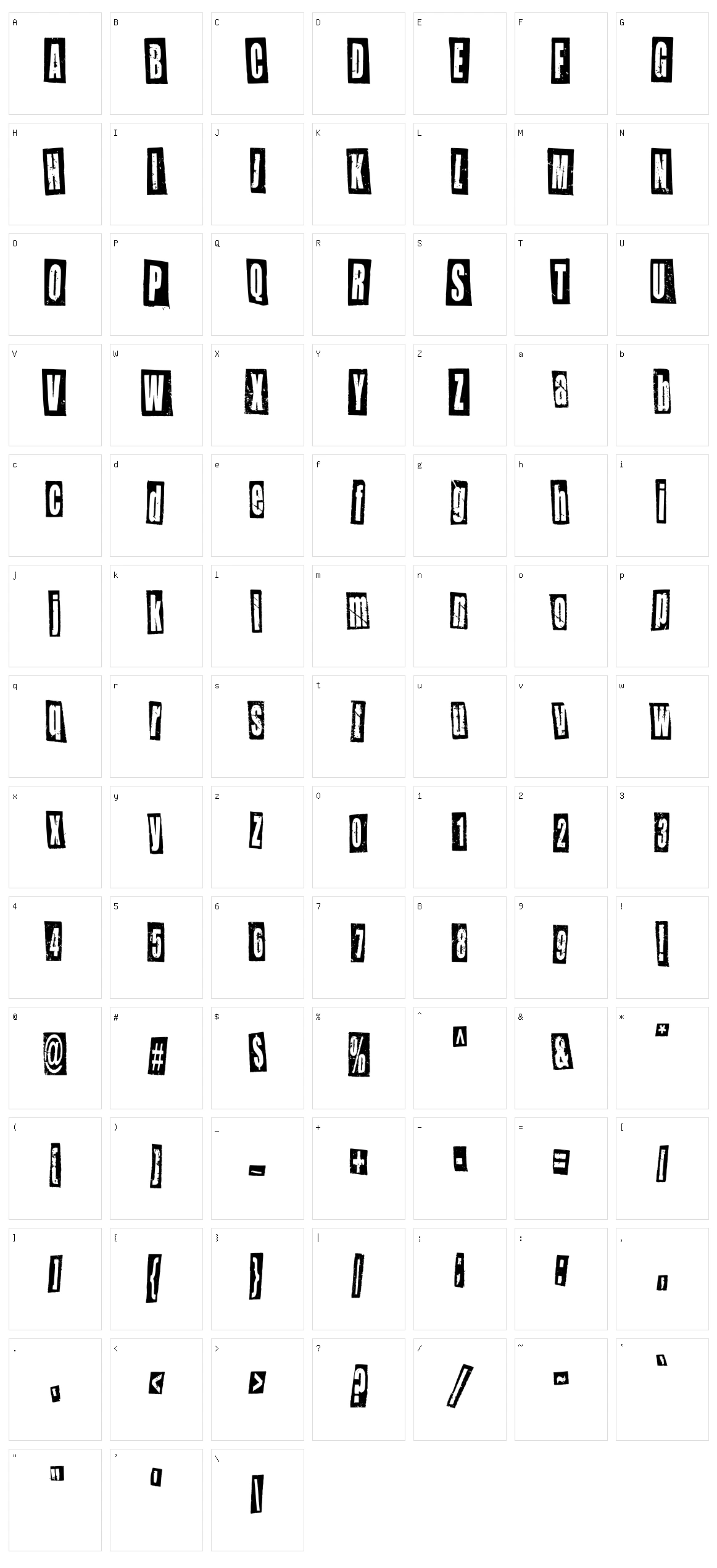
The free font Newspaper Cutout White On Black is carefully designed by onlygfxcom, showcasing a thoughtful balance of creativity and usability and falls under the Distorted font style. When you download the ZIP file, it contains only 91.92 KB of font files, making it lightweight and quick to download. Please review the license details below to understand permitted usage and distribution rights. If license information is not available, we recommend using this font for personal projects only or contacting the author directly for commercial usage permissions.